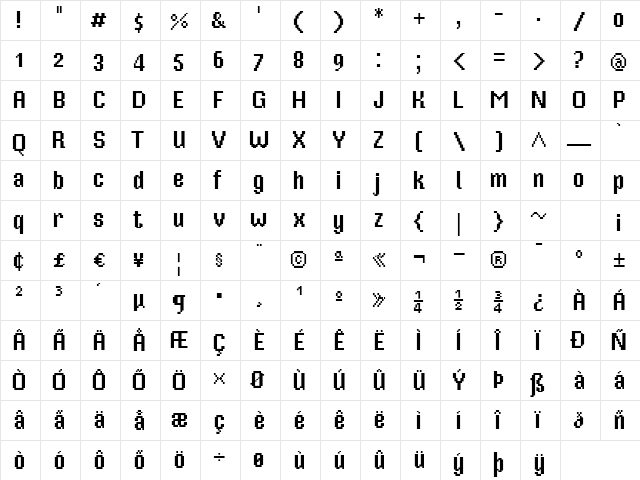
Mister Pixel 16 pt - Old Style Figure Regular
| Foundry | Christophe Badani |
| Designer | Christophe Badani |
Design Context for Mister Pixel 16 pt - Old Style Figure Typeface
Mister Pixel 16 pt - Old Style Figure is rooted in pixel-grid construction, making it a natural fit for game UI, retro computing aesthetics, and digital nostalgia projects.
A natural choice for retro game titles, chiptune music branding, 8-bit UI, and digital nostalgia projects.
Pro Tip: Pair Mister Pixel 16 pt - Old Style Figure with flat colour palettes and simple geometric UI elements to reinforce its digital aesthetic.